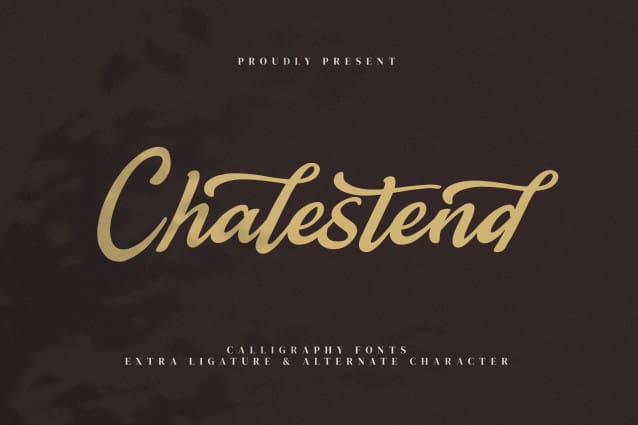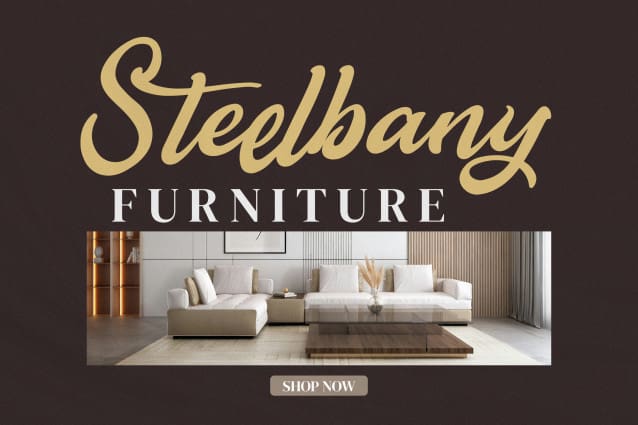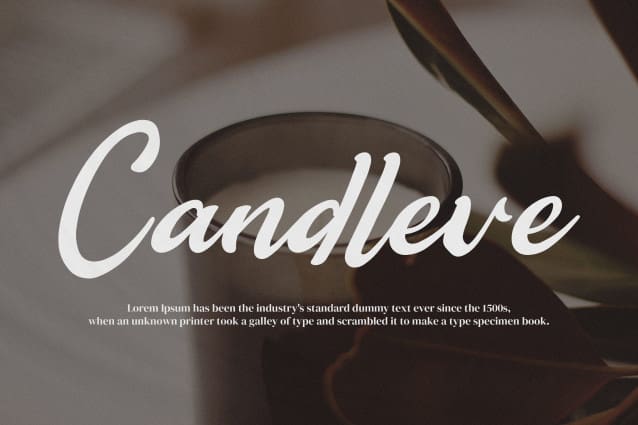
Chalestend Script Font
Chalestend Script Font – Calligraphy Font, from Goresan Studio, suitable for any projects such as: logos, branding projects, homeware designs, product packaging, mugs, quotes, posters, shopping bags, t-shirts, book covers, name card, invitation cards, greeting cards, label, photography, watermark, special events, and all your other lovely projects that need a beautiful script taste.